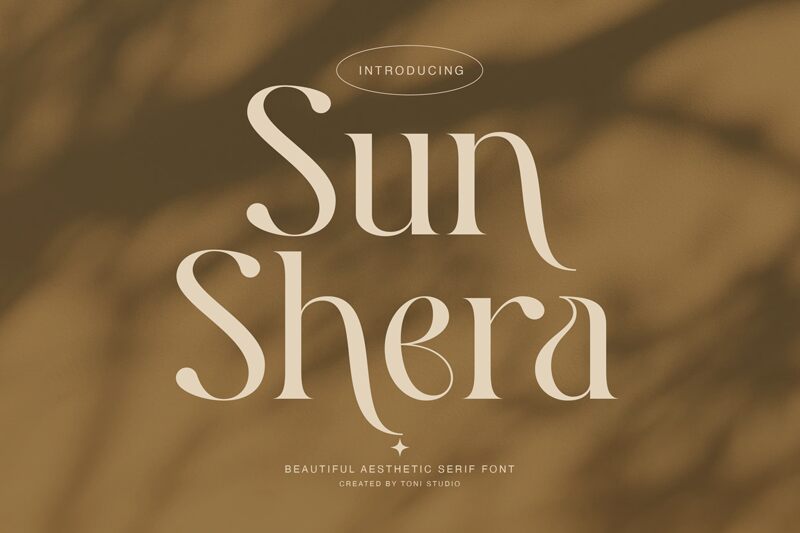
Sun Shera
Sun Shera, a captivating serif font crafted by ToniStudio, exudes a harmonious blend of tradition and modernity. With its elegant, flowing lines and refined details, this typeface evokes a sense of timeless sophistication. The balanced letterforms and subtle stroke variations lend a distinct character, inviting the reader to engage with the content in a visually compelling manner.
Sun Shera's versatility makes it a versatile choice for a wide range of design applications, from editorial layouts and book covers to corporate branding and signage. Its legibility and refined aesthetic make it an excellent selection for both print and digital mediums, ensuring a seamless and professional presentation across various platforms.